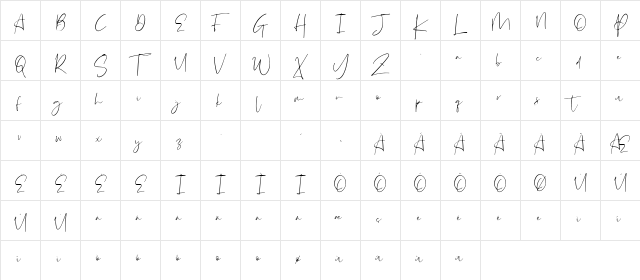
HelodiaDemo Regular
Design Context for HelodiaDemo Typeface
HelodiaDemo is a composed and adaptable typeface that performs quietly and consistently across a wide range of design contexts.